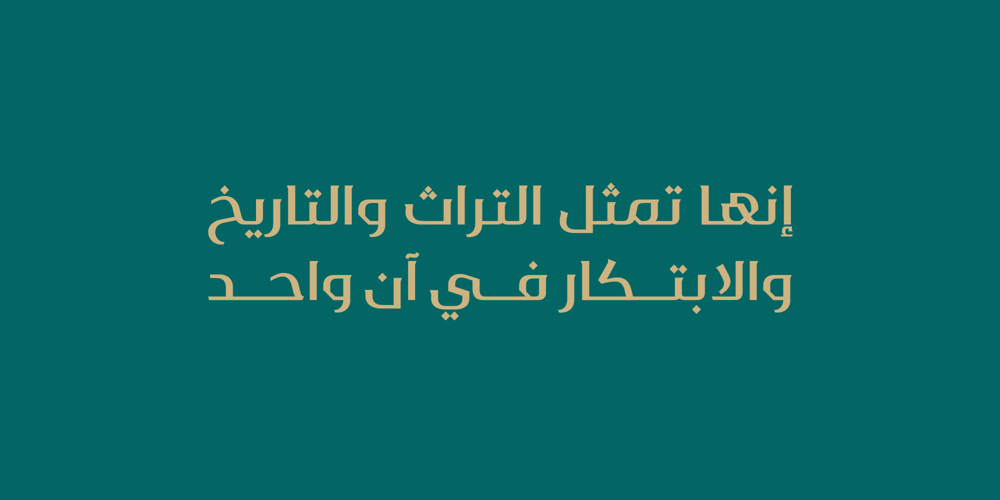
OYReem arabic
OYReem arabic font
OYReem arabic Font Family was designed by Omar Yahia and published by Omartype. OYReem arabic contains 5 styles and family package options. Introducing a brand new typeface, meticulously crafted by your hands. Inspired by the rich culture and heritage of the Arabic language, this typeface embodies your unique vision and artistic expression. It combines modern techniques with a deep understanding of the language’s aesthetics. This typeface has been developed using advanced techniques to ensure excellent clarity and readability. Every shape, line, and detail has been carefully studied to strike a perfect balance between elegance and legibility